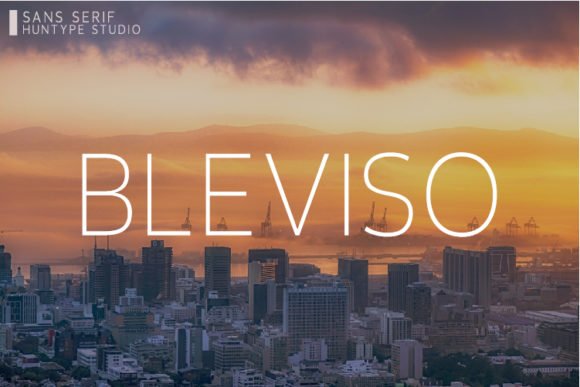
The Perfect Blend of Tradition and Modernity
Imagine yourself sitting in a quiet café, surrounded by the soft glow of morning light, as you meticulously craft the perfect design for a client’s new branding campaign. You’ve spent hours pouring over font options, but nothing seems quite right – until you stumble upon the Bleviso Font. Its elegant sans serif design immediately captures your attention, transporting you to a world of refined sophistication and understated charm.
Bleviso Font is more than just a font – it’s a carefully crafted blend of traditional influences and contemporary aesthetic. Its well-balanced Latin details contain distinctive contrasts that elevate any design to new heights. Whether you’re working on a high-end luxury brand or a minimalist startup, Bleviso Font offers the perfect solution for achieving an exquisite, yet subtle look and maximum versatility.
Bleviso Font Key Features
- Font Family: Bleviso Font is a sans-serif font family with multiple weights and styles.
- Size: The font family includes weights ranging from Extra Light to Extra Bold, providing a wide range of design options.
- Unique Characteristics: Bleviso Font features a clean and modern design with subtle rounded edges, giving it a friendly and approachable feel.
Bleviso Font Review
As a designer, I’ve had the chance to work with various fonts, and my experience with Bleviso has been a mixed bag. Here’s a breakdown of what I liked and didn’t like.
- Elegant aesthetic: Bleviso has a sophisticated, high-end feel that’s perfect for luxury brands or premium products.
- Legibility: The font is highly legible, even at smaller sizes, making it suitable for body text and headlines alike.
- Style versatility: Bleviso comes in multiple weights and styles, allowing for a range of design possibilities.
- Overuse: The font’s elegant design can make it feel overused or clichéd if not paired thoughtfully with other typography elements.
Bleviso is a solid choice for designers looking to create a premium, high-end aesthetic. While it has some limitations, the font’s elegant design and versatility make it a great addition to any design toolkit. Just be mindful of the cost and potential for overuse.
- Use Bleviso Font for headings and titles to add a touch of elegance to your design.
Bleviso Font is commonly used for:
- Business cards and marketing
Bleviso Font is a modern sans-serif font, but sometimes designers need alternatives to suit their design needs. Here are a few options:
Montserrat Font is a sans-serif font designed by Julieta Ulanovsky. It is perfect for modern and minimalist designs. Montserrat is a more geometric font compared to Bleviso, with a strong x-height and a large x-axis. It is ideal for use in digital products, apps, and websites.
Comparison: Montserrat is more geometric and modern, while Bleviso is more rounded and playful. Montserrat is a better choice for digital products, while Bleviso is better suited for print materials.
Lato Font is a sans-serif font designed by Łukasz Dziedzic. It is a highly legible font with a friendly feel. Lato is a more rounded font compared to Bleviso, with a softer x-height and a smaller x-axis. It is ideal for use in corporate and business designs.